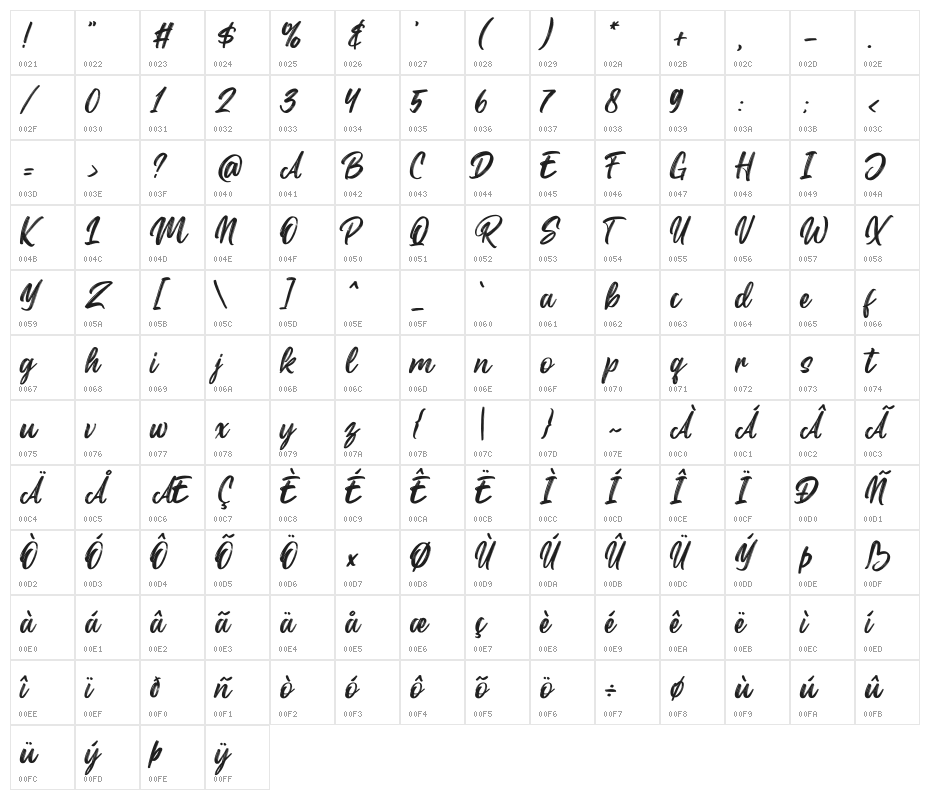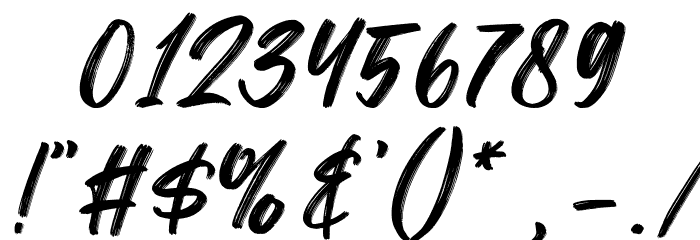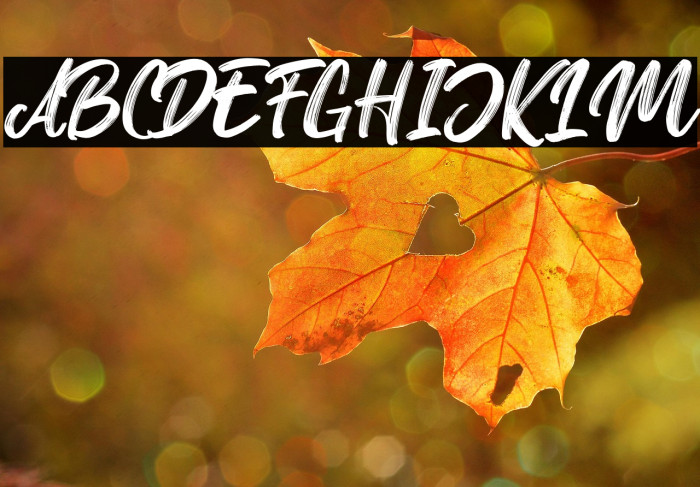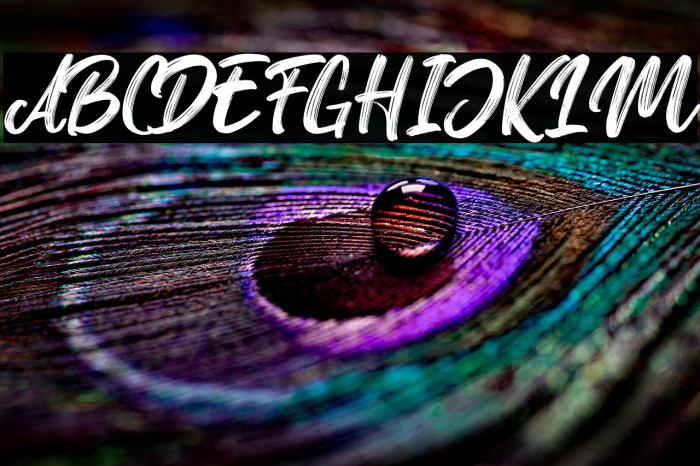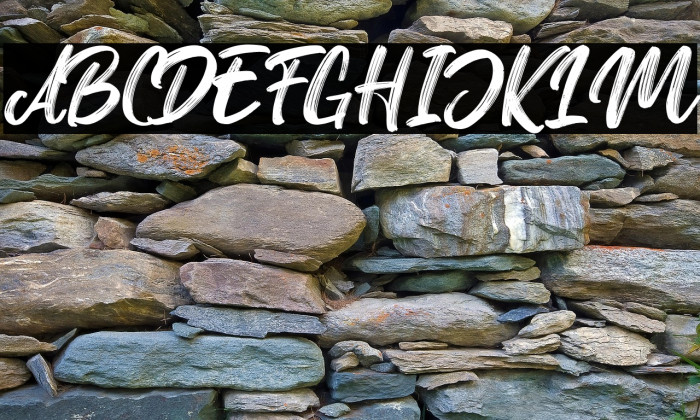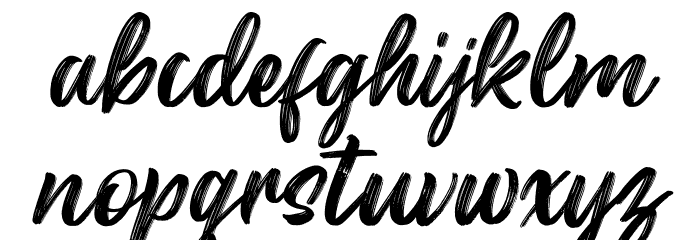
Hallies Font
Hallies Description
This font features a dynamic and expressive script style, characterized by bold, sweeping strokes that convey a sense of energy and movement. The letters are interconnected, giving it a fluid and cohesive appearance. The uppercase letters are particularly striking, with exaggerated flourishes and a slightly slanted orientation that adds to the overall sense of motion. The lowercase letters maintain this fluidity, with smooth curves and a consistent stroke width. Numbers and special characters are designed to match the lively style of the alphabet, ensuring a harmonious look across all text. This font is ideal for projects that require a personal, handwritten touch, while still maintaining a sense of sophistication and style.